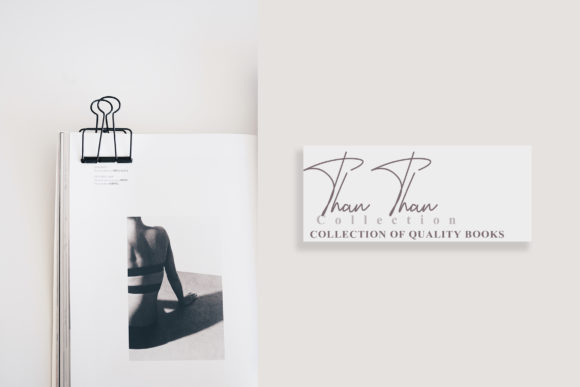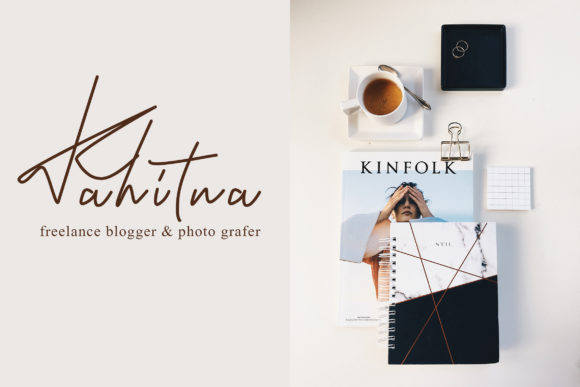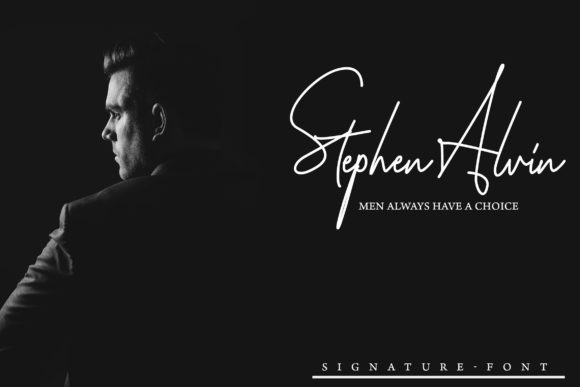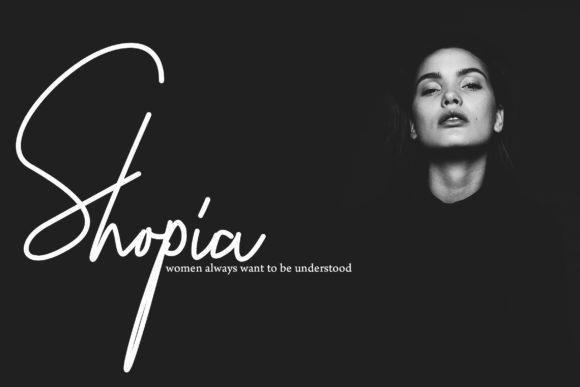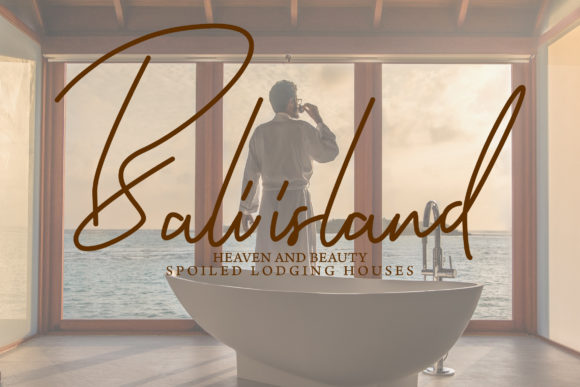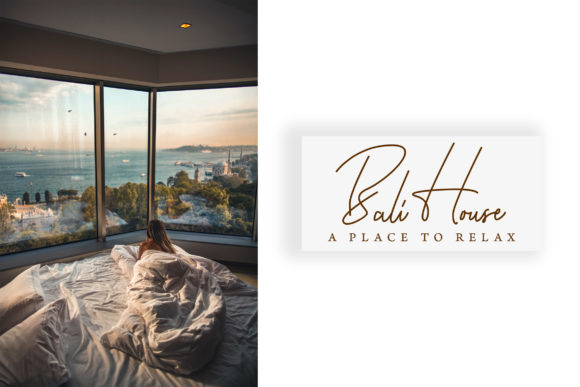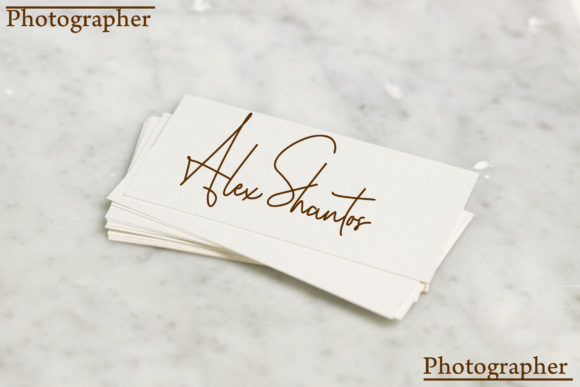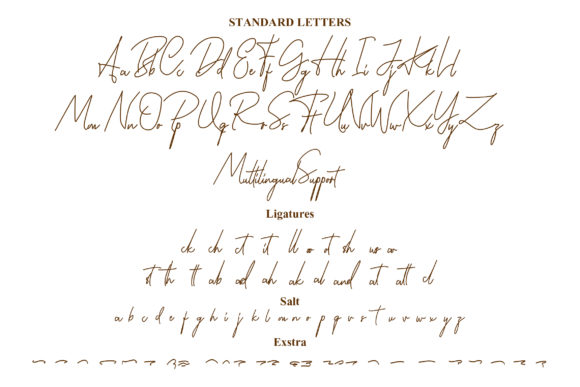
HomeScript FontsAambalam Font Script Fonts Aambalam Font FacebookXPinterestWhatsApp Aambalam Font Poster 2 Aambalam Font Poster 3 Aambalam Font Poster 4 Aambalam Font Poster 5 Aambalam Font Poster 6 Aambalam Font Poster 7 Aambalam Font Poster 8 Aambalam Font Poster 9 About Aambalam Font 100% handwritten and incredibly cool: Aambalam is a modern and charming handwritten font with a cool charm. DOWNLOAD ON CREATIVE FABRICAThis font is sold and delivered by Creative Fabrica. Font Canyon may earn a commission if you buy through this link. People also explored Smally Font Bethania Font Hello Baby Font Beauty Floralita Font Nasty Life Font Cathena Font Angelynn Monogram Amsterdam Font Street Font 341 0 TagsAambalam Font Previous articleBlue Fonte Duo FontNext articleCreattipe Font LEAVE A REPLY Cancel reply Comment: Please enter your comment! Name:* Please enter your name here Email:* You have entered an incorrect email address! Please enter your email address here Website: Save my name, email, and website in this browser for the next time I comment. Personal Use Free Kitchen Blue Personal Use Free Read more about this font Cuttering Personal Use Free Read more about this font Metal Lord Personal Use Free Read more about this font Shelly Personal Use Free Read more about this font BLOG Fonts That Capture the Spirit of New York City New York City is more than just a place—it’s an experience, a rhythm, a visual language... Best Fonts for YouTube Videos: Make Your Thumbnails Stand Out Top 10 Handwritten Fonts That Elevate Your Designs 5 Fonts That Will Dominate Design Trends in 2026